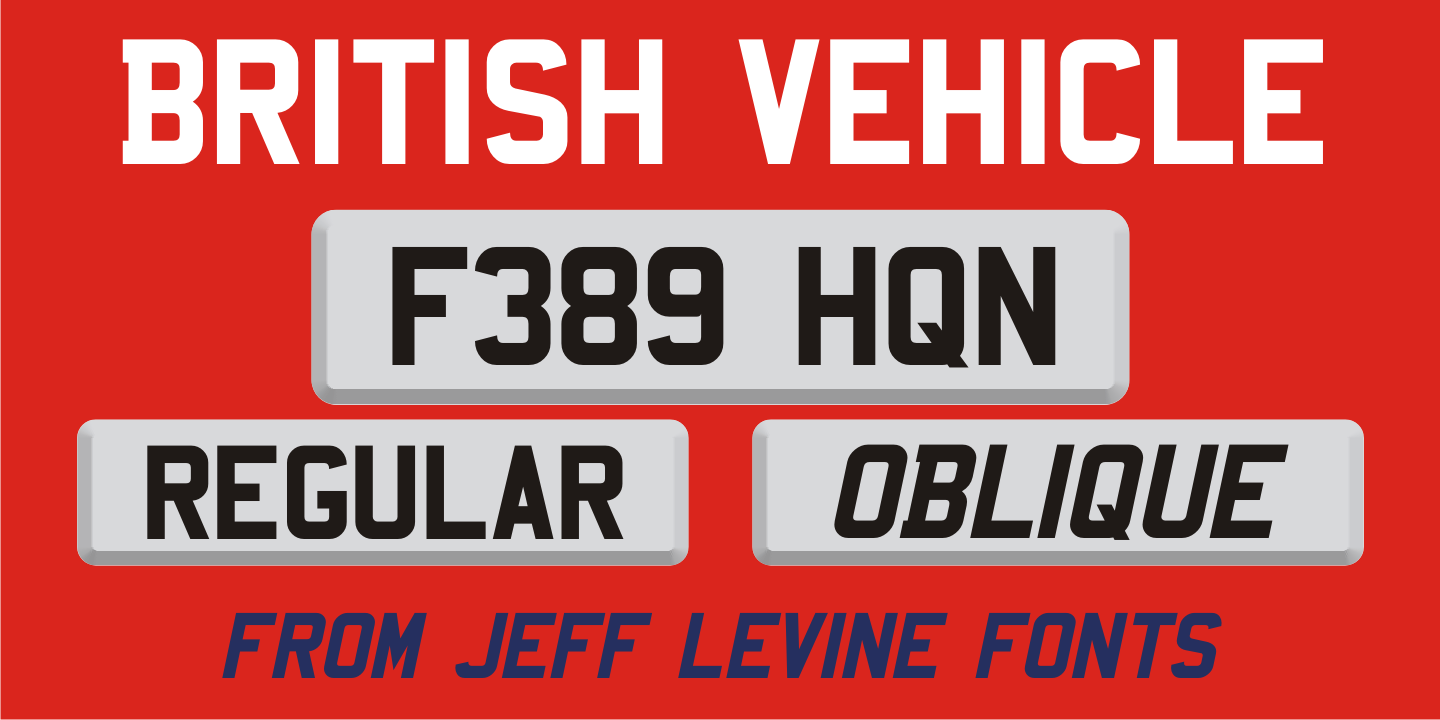
British Vehicle JNL Font is ideal for classic car show posters, vintage automotive branding, British motor club signage, heritage vehicle restoration materials, classic motorcycle events, traditional garage workshop graphics, retro transportation museums, and authentic British automotive heritage celebrations. Its distinguished British character makes it perfect for projects honoring classic British motoring traditions.
What makes British Vehicle JNL Font exciting is its authentic ability to capture the distinguished heritage of British automotive excellence through precisely crafted letterforms that echo the golden age of British engineering and motor sport. The classic construction features traditional proportions with vintage flair that evokes the elegance of iconic British vehicles and racing heritage. This typeface embodies British automotive prestige and engineering excellence, making every design feel authentically distinguished and historically significant.
British Vehicle JNL Font family includes Regular, Bold, Light, Condensed, Vintage, and Heritage variations, providing designers with comprehensive tools for creating compelling British automotive-inspired typographic compositions that celebrate motoring history.
Drive exceptional design with the distinguished heritage of British Vehicle JNL Font Free Download. This prestigious typeface brings British automotive elegance to any creative project, whether you're developing brand identities for classic car businesses, crafting promotional materials for vintage automotive events, or designing graphics for motor sport organizations. The font's British-engineered architecture and heritage presence make it essential for projects requiring authentic automotive appeal. British Vehicle JNL Font perfectly captures the essence of British motoring tradition while ensuring optimal readability across all automotive applications. Its distinguished character forms and heritage-inspired design language make it ideal for brands seeking to communicate automotive excellence and British engineering pride, delivering memorable results that resonate with audiences who appreciate classic British vehicles, motor sport heritage, and the timeless elegance of distinguished British automotive craftsmanship.